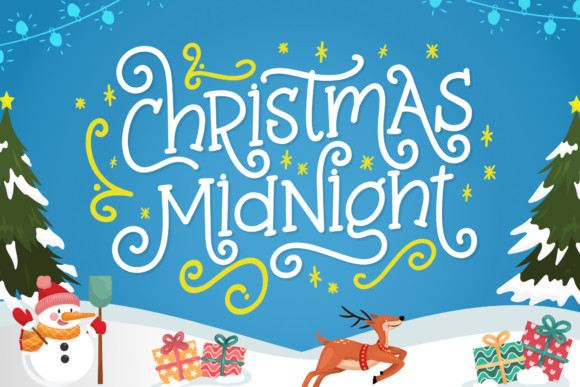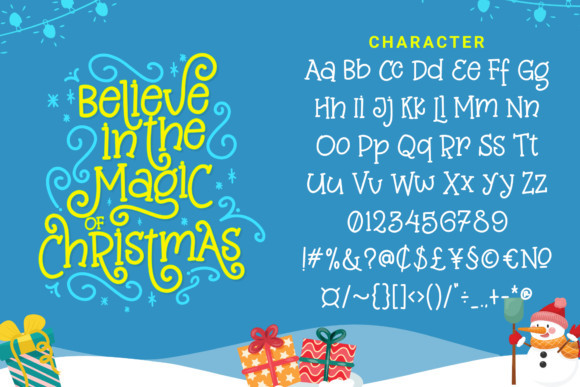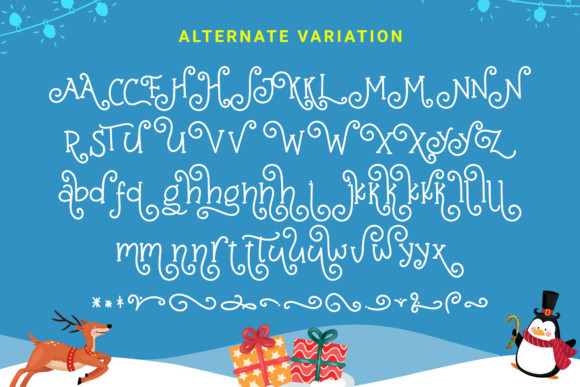
Christmas Midnight Font
Christmas Midnight is a whimsical handwritten font, perfect for all of your crafting projects. It is defined by smooth curves and is perfect for fashion branding or editorial designs. Christmas Midnight is PUA encoded which means you can access all of the glyphs and swashes with ease!